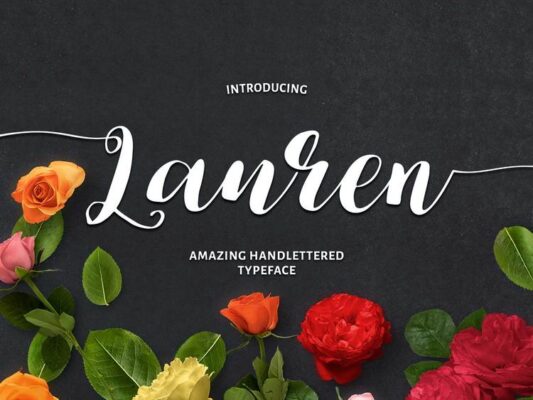
Lauren Script Font
• Professionally designed with love and care, Lauren provides you with rich stylistic alternates and ligatures via Open Type features. Besides, it comes in OTF, TTF, and Web Fonts formats. This script is destined to look gorgeous on greeting cards, branding materials, business cards, quotes, posters, and even more!